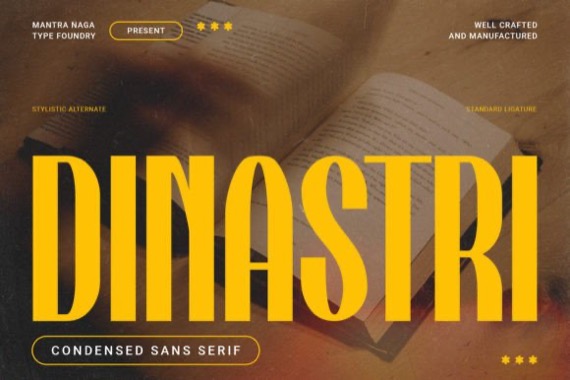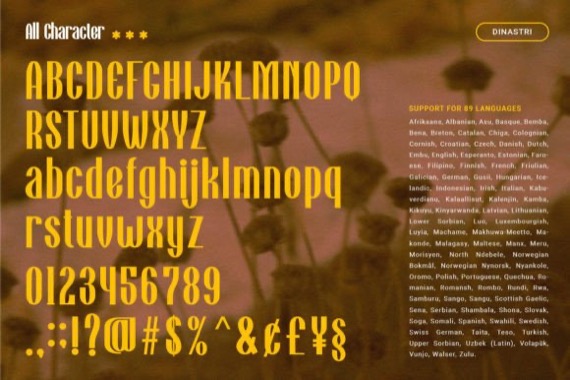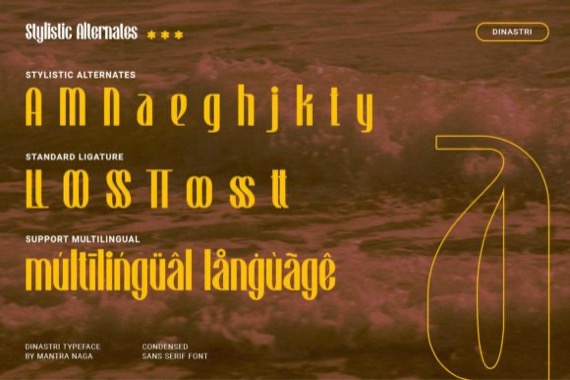
Dinastri is a modern and chic condensed sans serif font that was created and shared by Mantranaga Studio with a modern edge with bold characteristics. At 385 glyphs, this font is perfect for modern logos, contemporary web designs, or printed headlines.
Dinastri Sans Serif Font